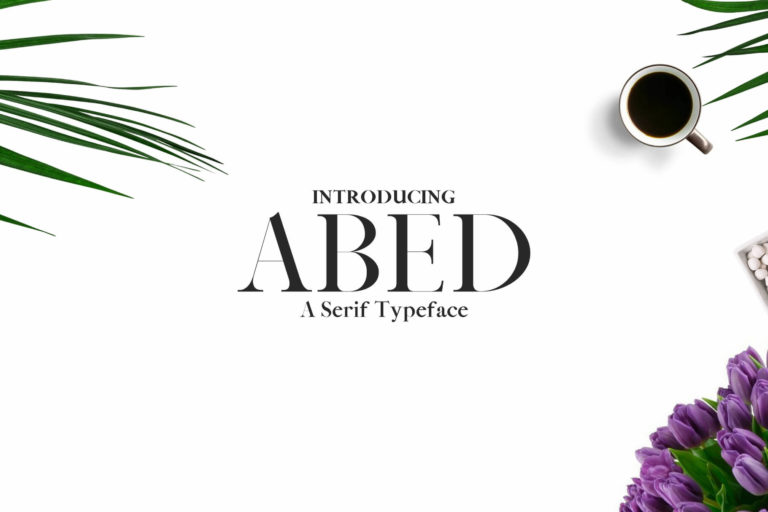
- Abed Serif Font Family | Typeface
Abed Serif Font Pack is a creative and modern font perfect for use in logo designs, resume, headlines, banners and templates etc. It looks gorgeous in all caps with a wide-set spacing if you want to try a classy look, or beautiful on its own in capital and lowercase letters for something completely timeless.